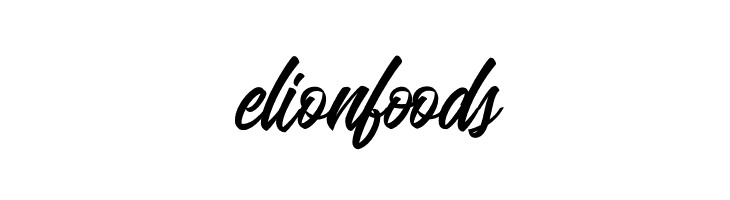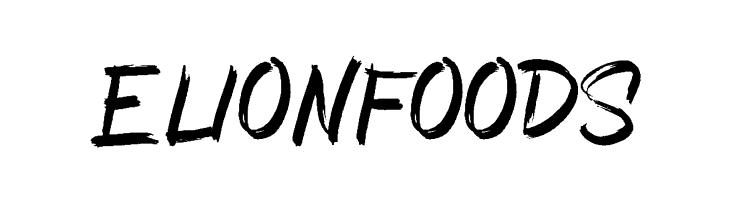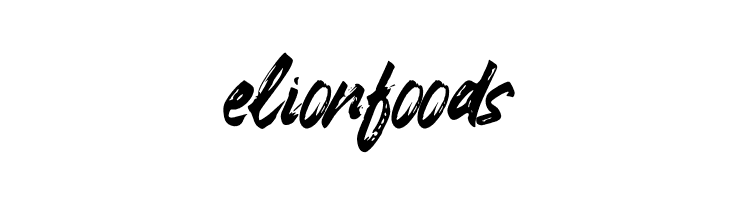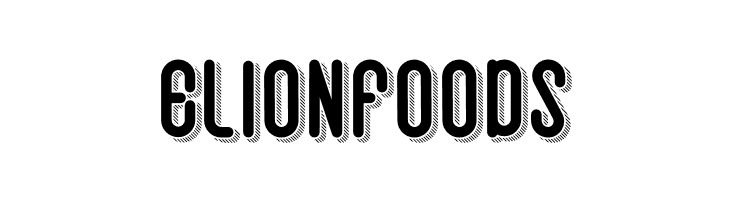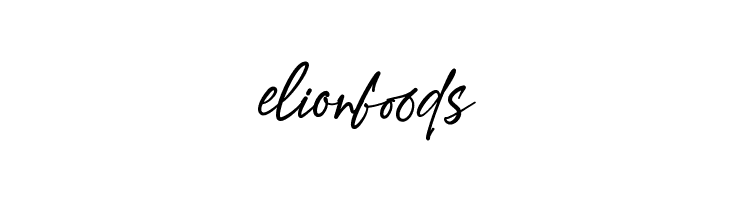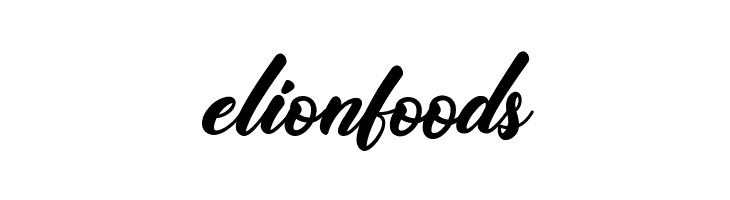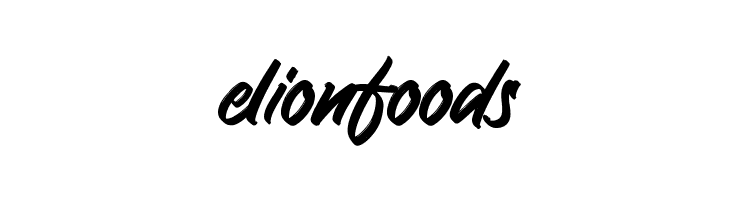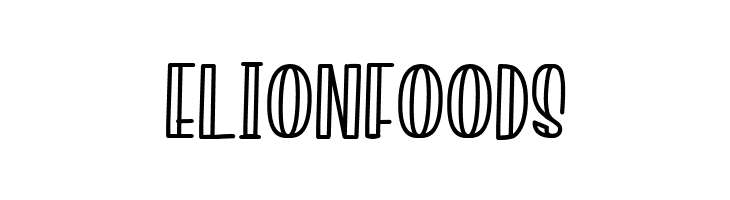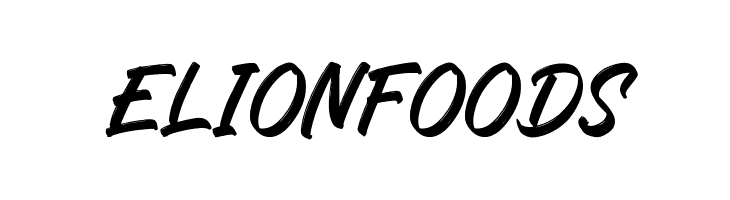
A bold, geometric sans-serif typeface with clean lines and a modern aesthetic.
A bold, dynamic brush script font with a hand-drawn appearance.
A flowing, cursive script font with elegant, connected strokes.
A fluid, cursive font with a handwritten signature style.
Elegant, high-contrast decorative script with ornate uppercase and flowing lowercase.
A playful, handwritten font with a whimsical and dynamic style.
A modern, flowing handwritten font with elegant, connected characters.
A dynamic and flowing script font with elegant, elongated letterforms and high contrast strokes.
A dynamic and flowing script font with elegant, cursive letterforms.
A dynamic, cursive script font with interconnected letters and elegant loops.
A playful and bold script font with rounded, flowing letterforms.
A bold, expressive brush-style font with dynamic strokes.
A bold, playful handwritten font with dynamic, irregular strokes.
A playful, handwritten font with smooth, flowing letterforms and a casual style.
A playful, handwritten font with smooth, flowing lines and a casual style.
A playful, bold font with a hand-drawn, comic book style.
A bold, rounded font with smooth curves and a playful style.
A bold, decorative font with leaf-patterned characters.
A bold, decorative font with leaf motifs integrated into each character.
A decorative font with leaf-inspired characters, perfect for nature-themed designs.
A playful, vegetable-themed decorative font with bold, quirky characters.
A playful and whimsical font with decorative, leaf-like patterns inside bold, rounded characters.
A whimsical, vegetable-themed decorative font with bold, textured characters.
A bold, playful handwritten font with an energetic and artistic style.
A playful and whimsical font with decorative curls and loops.
A dynamic and expressive handwritten font with fluid cursive letterforms.
A playful and bold font with quirky, uneven strokes.
A playful and elegant script font with a handwritten style.
A bold, elegant script font with flowing curves and a modern calligraphic style.
A bold, rounded font with a playful and friendly style.
A playful, bold font with a bubbly, cartoonish style and 3D shadow effect.
A bold, geometric sans-serif font with a modern, minimalistic design.
An elegant, flowing script font with dynamic stroke contrast.
A hand-drawn, textured font with a casual and artistic style.
A bold, textured font with a distressed, grunge-like style.